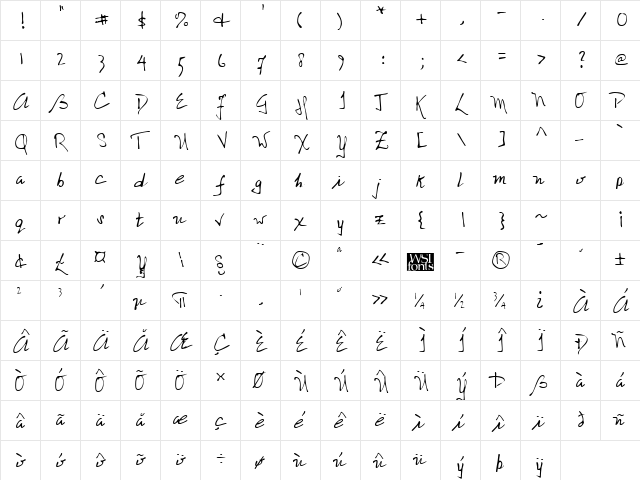
NolansHand Regular Font Preview
NolansHand Regular
NolansHand Regular Font Details
Design Context for NolansHand Typeface
NolansHand brings a calligraphic fluidity to the page — its connecting strokes and expressive curves give it an unmistakably human quality.